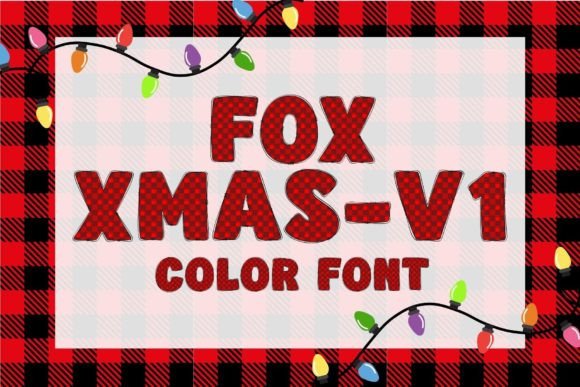
Introducing Fox Xmas-v1 Font: The Ultimate Color Font for Your Creative Projects
Are you looking for a font that can add a touch of magic to your designs? Look no further than the Fox Xmas-v1 font, a cool and fun color font that’s perfect for creating stunning invitations, stationary art, social media posts, and greeting cards. With its authentic feel and vibrant colors, this font is sure to make your creative projects stand out.
What is Fox Xmas-v1 Font?
Fox Xmas-v1 is an OpenType full-color (SVG) font that’s designed to bring a pop of color to your designs. Unlike traditional fonts, which are limited to a single color, Fox Xmas-v1 uses SVG technology to display a range of colors that can be used to create beautiful, eye-catching designs.
Tips for Using Fox Xmas-v1 Font
Here are some tips for getting the most out of Fox Xmas-v1 font:
- Use it to create stunning invitations and greeting cards for special occasions.
- Add it to your social media posts to make them stand out.
- Use it to create beautiful stationary art and journal pages.
- Experiment with different colors and design elements to make your projects truly unique.
Why Choose Fox Xmas-v1 Font?
So why choose Fox Xmas-v1 font for your creative projects? Here are just a few reasons:
- Its authentic feel and vibrant colors make it perfect for creating eye-catching designs.
- It’s perfect for designers and crafters who want to add a touch of magic to their projects.
Fox Xmas-v1 font is a powerful tool for designers and crafters who want to create stunning, eye-catching designs. With its authentic feel, vibrant colors, and wide range of compatibility, it’s the perfect choice for anyone looking to add a touch of magic to their creative projects. So why wait? Download Fox Xmas-v1 font today and start creating your own beautiful designs!